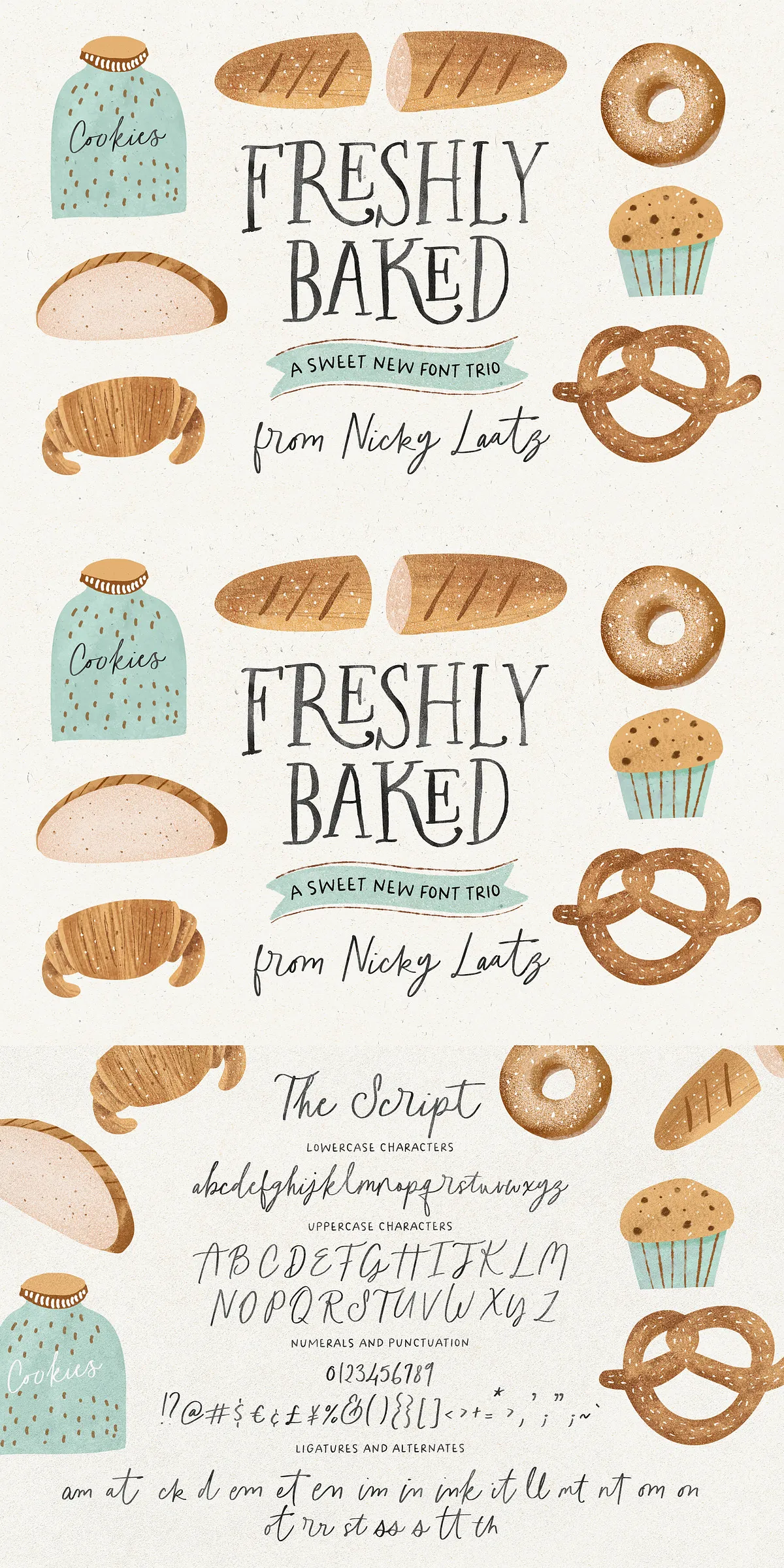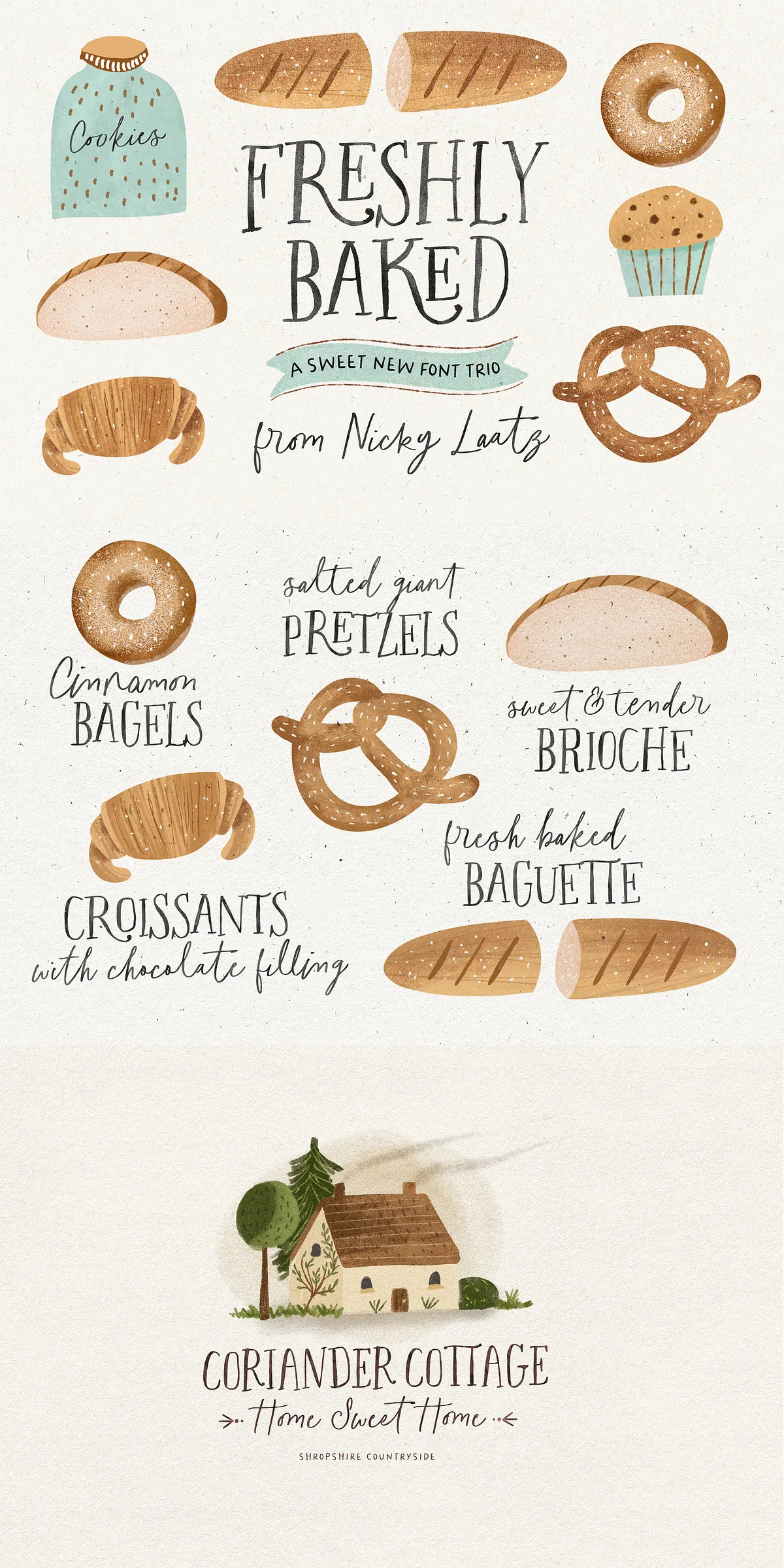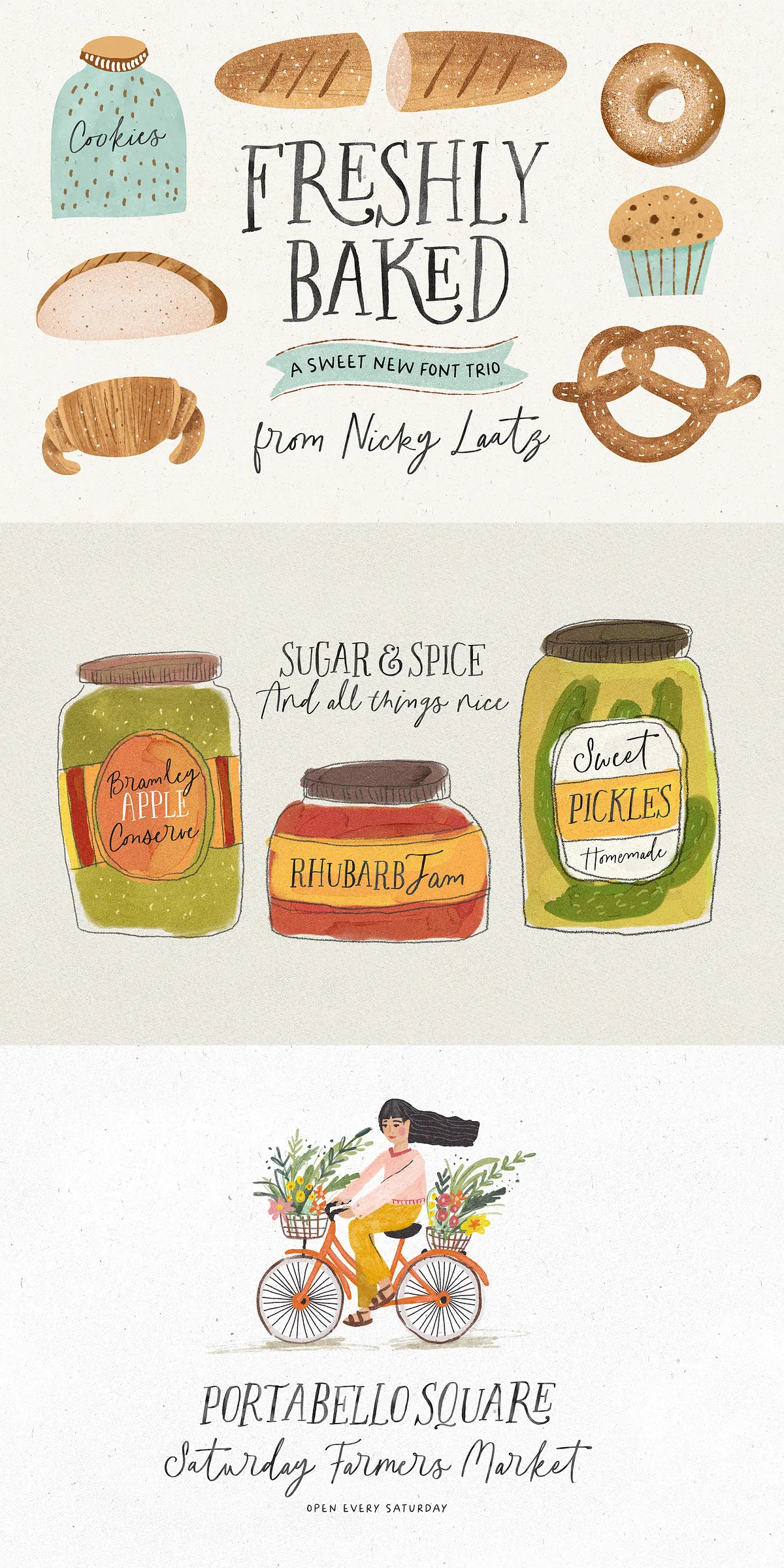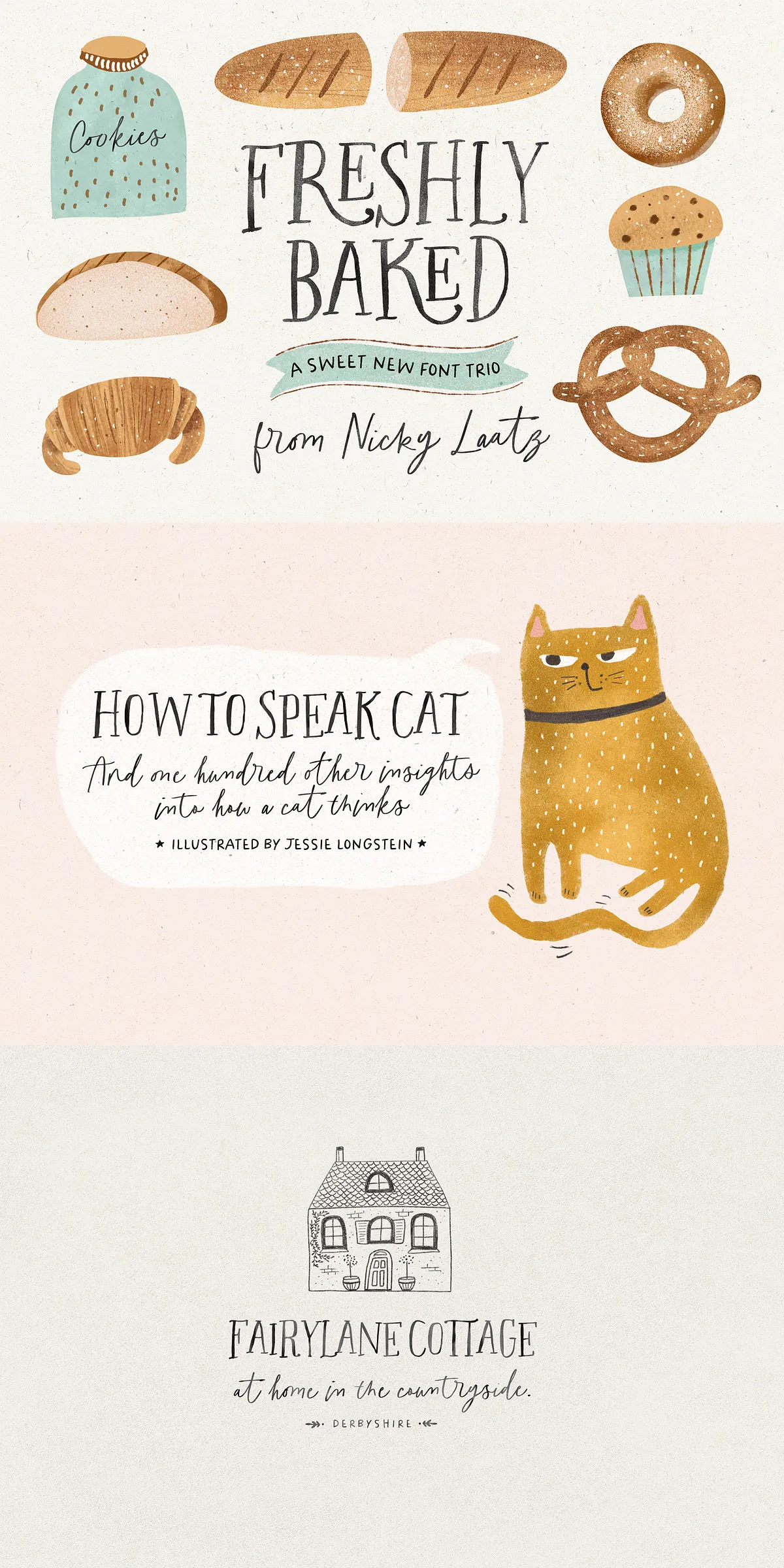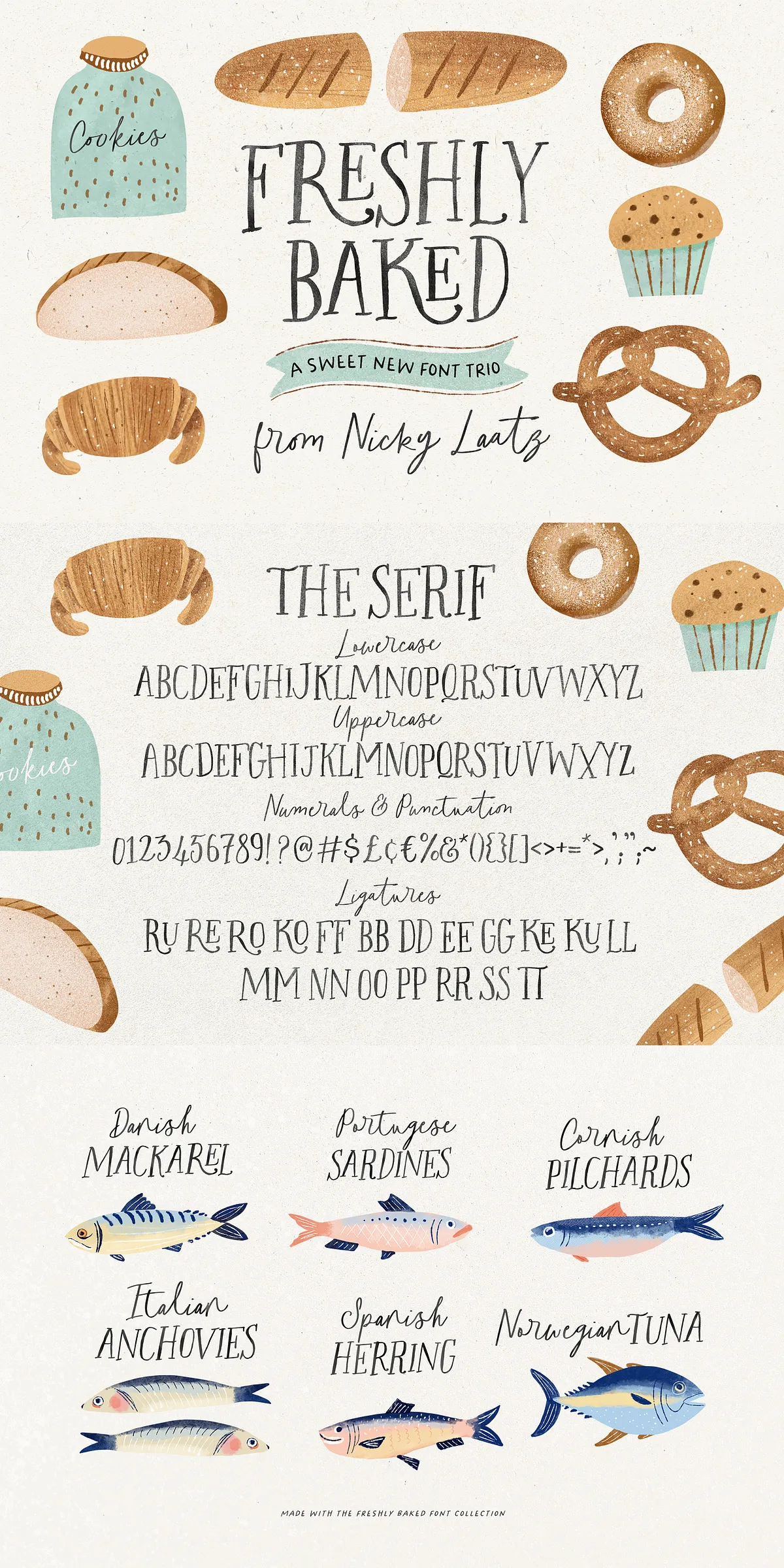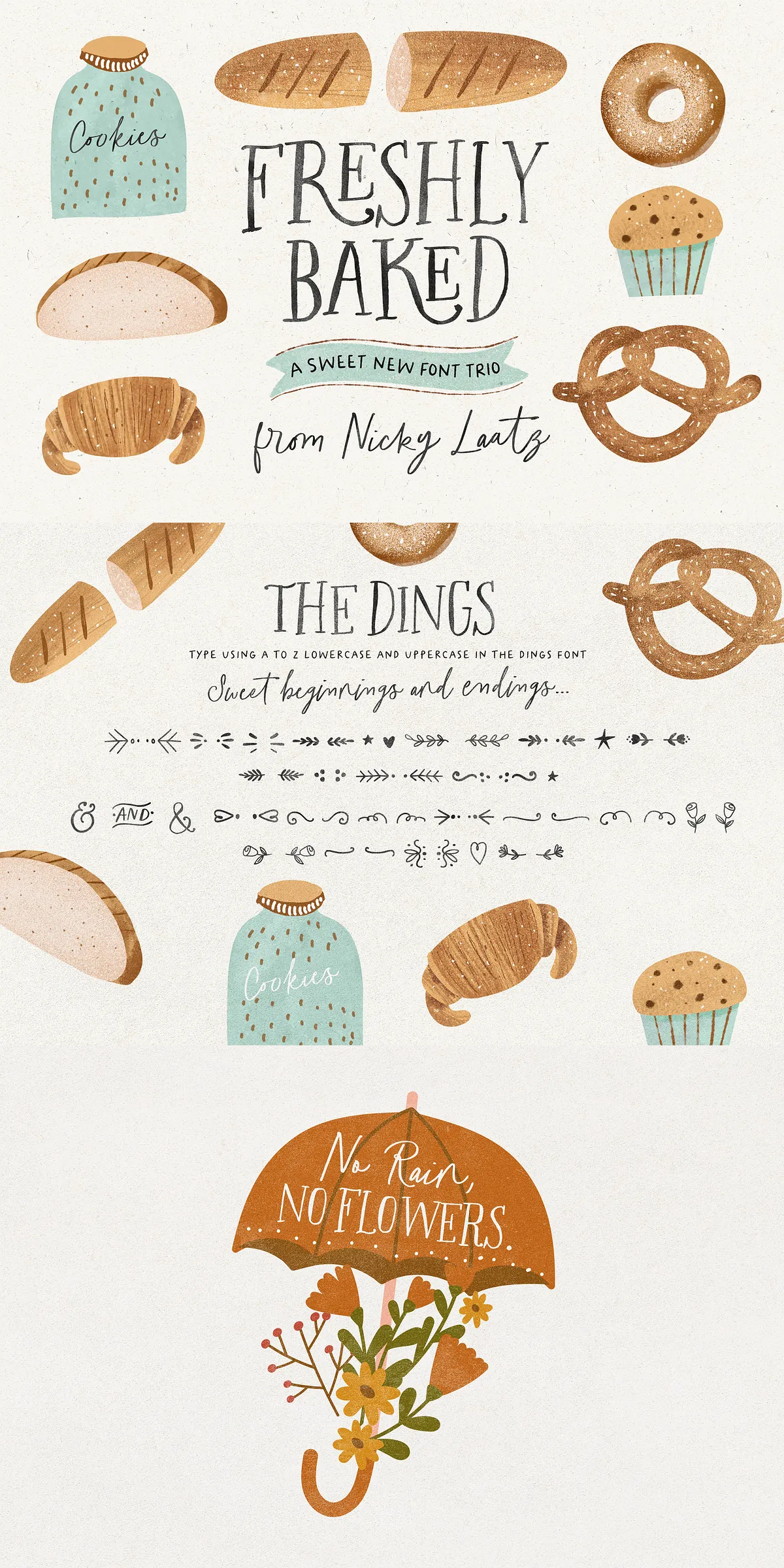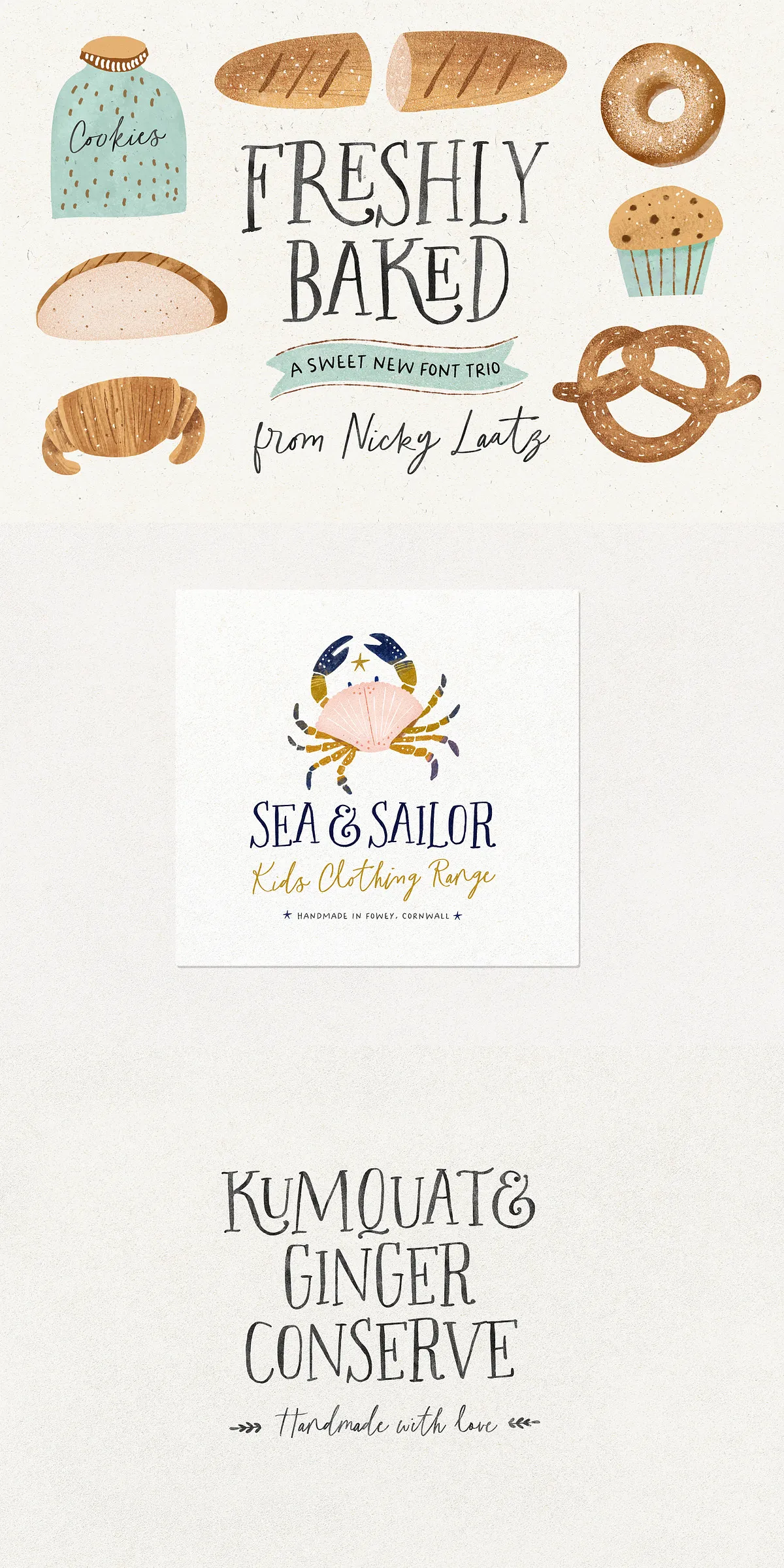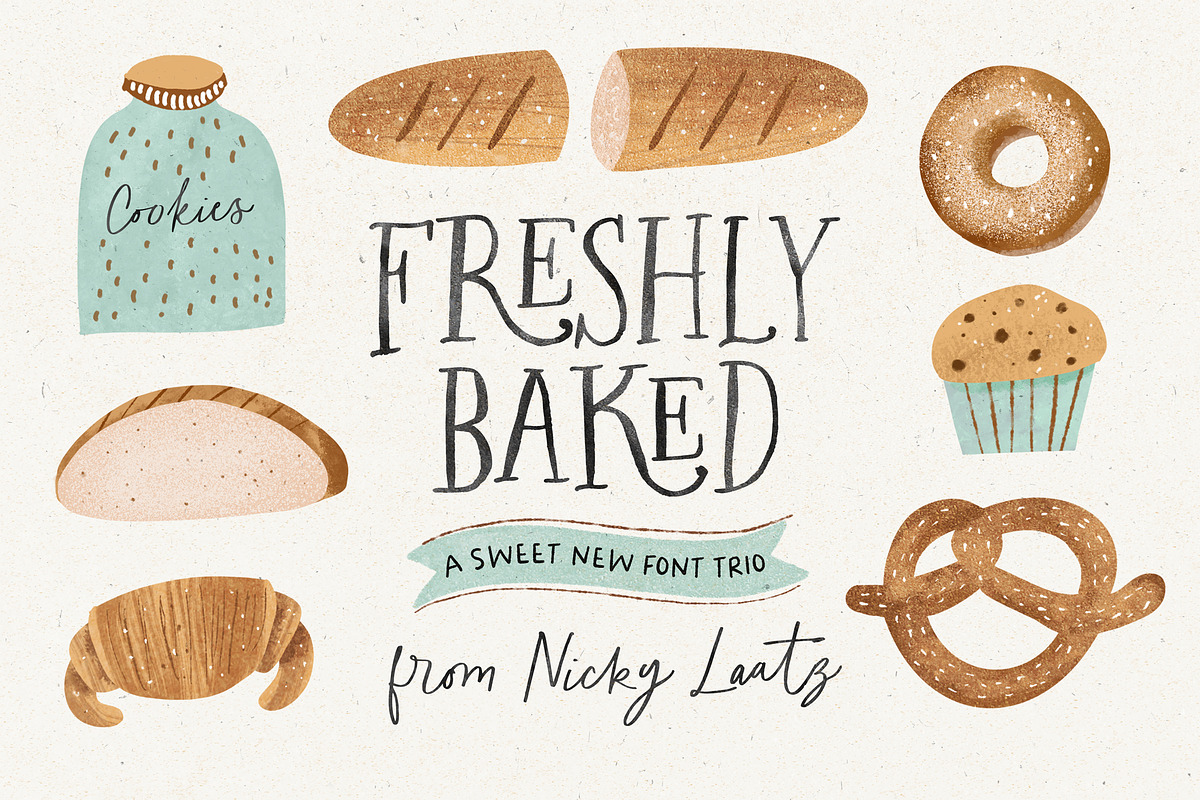
Step into a world of warmth, personality, and creative delight with the Freshly Baked Font Trio — a handcrafted collection of five distinctive typefaces that bring joy, texture, and character to every project. From the cozy charm of a handwritten script to the quirky elegance of a whimsical dingbat font, this trio is designed for creators who love typography with soul. Whether you’re designing playful greeting cards, vibrant children’s books, fun packaging, or unique logos, Freshly Baked delivers an authentic, hand-drawn feel that stands out in any medium.
Meet the Full Collection: Five Fonts, One Creative Vision
Each font in the Freshly Baked series was crafted with meticulous attention to detail, ensuring natural flow, expressive shapes, and delightful inconsistencies that mimic real handwriting. Here’s what you get:
- Freshly Baked Serif – A warm, rounded serif with gentle swashes and subtle variations, perfect for titles and body text that feel personal and inviting.
- Freshly Baked Serif Slanted – A dynamic, italic-inspired version that adds rhythm and movement to your layout, ideal for emphasis and visual flair.
- Freshly Baked Sans – A clean, friendly sans-serif with handwritten warmth, great for casual headings, labels, and modern designs with an organic touch.
- Freshly Baked Sans Slanted – The slanted counterpart to the Sans, adding a sense of motion and contemporary edge to your typography.
- Freshly Baked Script – The star of the show. A flowing, expressive script with elegant swashes and a lively rhythm, perfect for signatures, quotes, and romantic designs.
- Freshly Baked Dings – A delightful bonus! A custom dingbat font filled with whimsical icons like cupcakes, stars, hearts, and playful ornaments. Ideal for adding visual fun and decoration to your designs.
Unlock the Full Potential with OpenType Features
The Freshly Baked Serif and Script fonts are packed with professional-grade OpenType features designed to elevate your work. Don’t miss out — make sure to enable ligatures as you type! These advanced features automatically replace standard letter pairs with artistic, connected forms, creating seamless, fluid text that looks hand-drawn and carefully composed. Use them to transform basic phrases into stunning typographic pieces with minimal effort.
- Premium OpenType support with ligatures, alternate characters, and contextual substitutions
Perfect for Every Project That Needs Personality
The Freshly Baked Font Trio is built for projects where charm, character, and creativity are key. Use it to:
- Create hand-lettered greeting cards and invitations – Whether it’s a birthday, baby shower, or thank you note, your message will feel personal and heartfelt.
- Design children’s books and storybooks – Bring characters and tales to life with playful, readable, and expressive type.
- Develop fun, colorful packaging – Elevate food labels, skincare products, or craft goods with a homemade, artisanal feel.
- Build unique logos and brand identities – Stand out with a brand voice that feels human, warm, and authentic.
- Illustrate digital art, social media graphics, and web banners – Make your content visually engaging and highly shareable.
This font family isn’t just about looks — it’s about feeling. It communicates warmth, care, and creativity in a way that polished, mechanical fonts simply can’t.